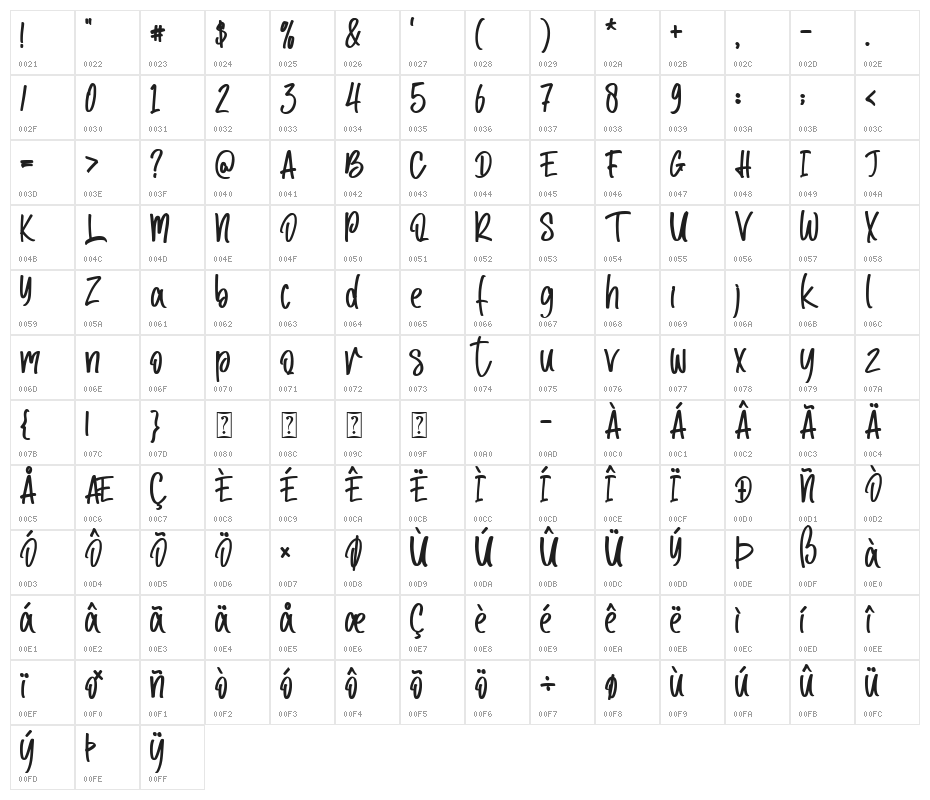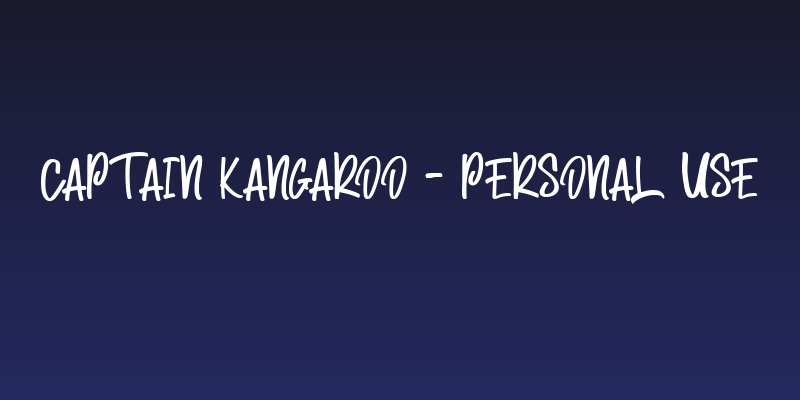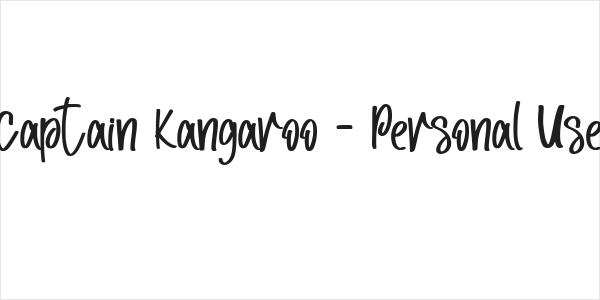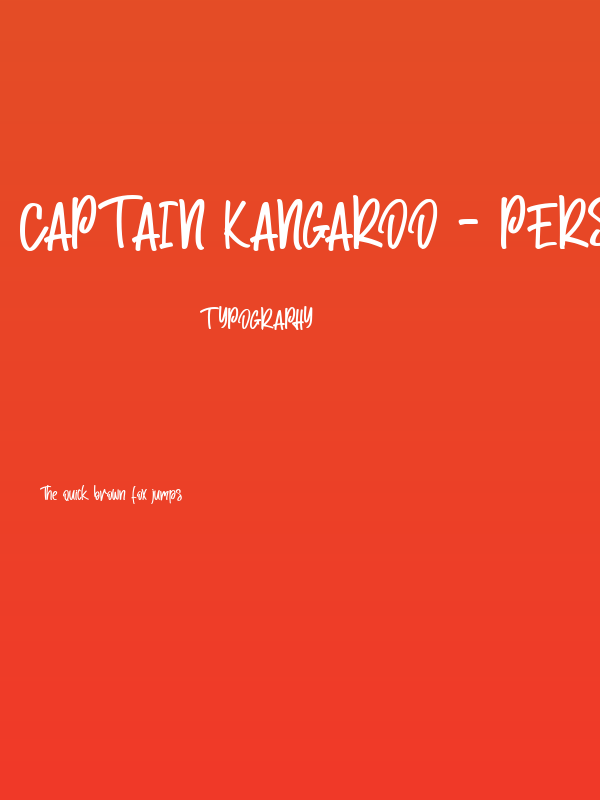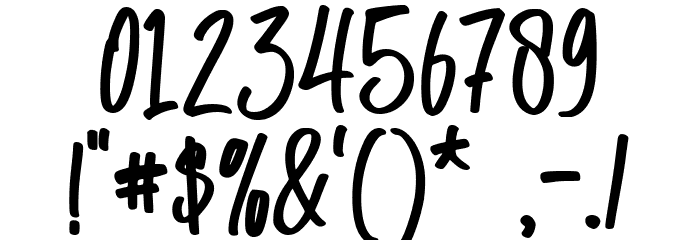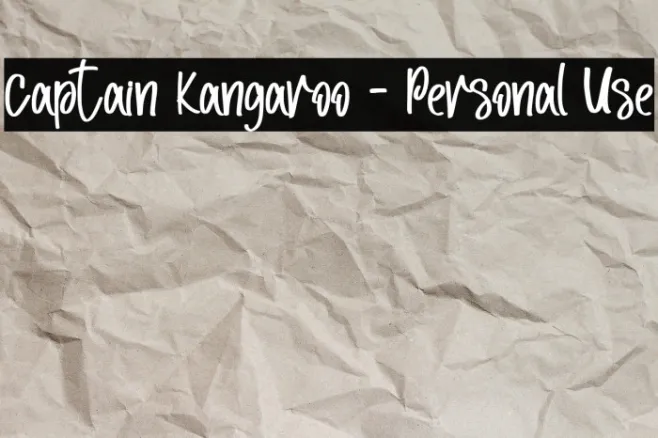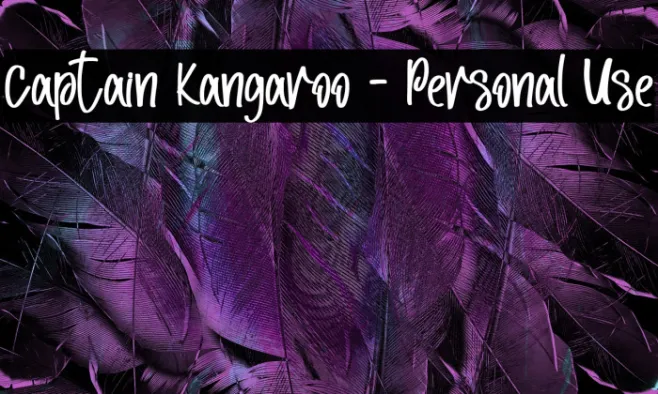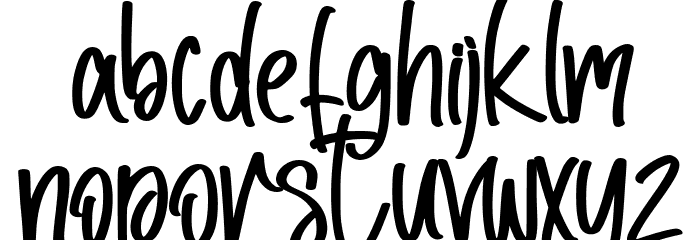
Captain Kangaroo - Personal Use Font
Captain Kangaroo - Personal Use Description
This font features a playful and energetic handwritten style, characterized by its bold and expressive strokes. The letters have a casual, informal appearance, with a slight slant that adds to their dynamic feel. The uppercase and lowercase letters are well-balanced, maintaining a consistent flow throughout. The numbers and special characters are designed to match the overall aesthetic, providing a cohesive look. This font's lively and friendly nature makes it suitable for projects that require a personal touch.
| Proposed Projects | Ideal for greeting cards, children's books, playful branding, and social media graphics. |